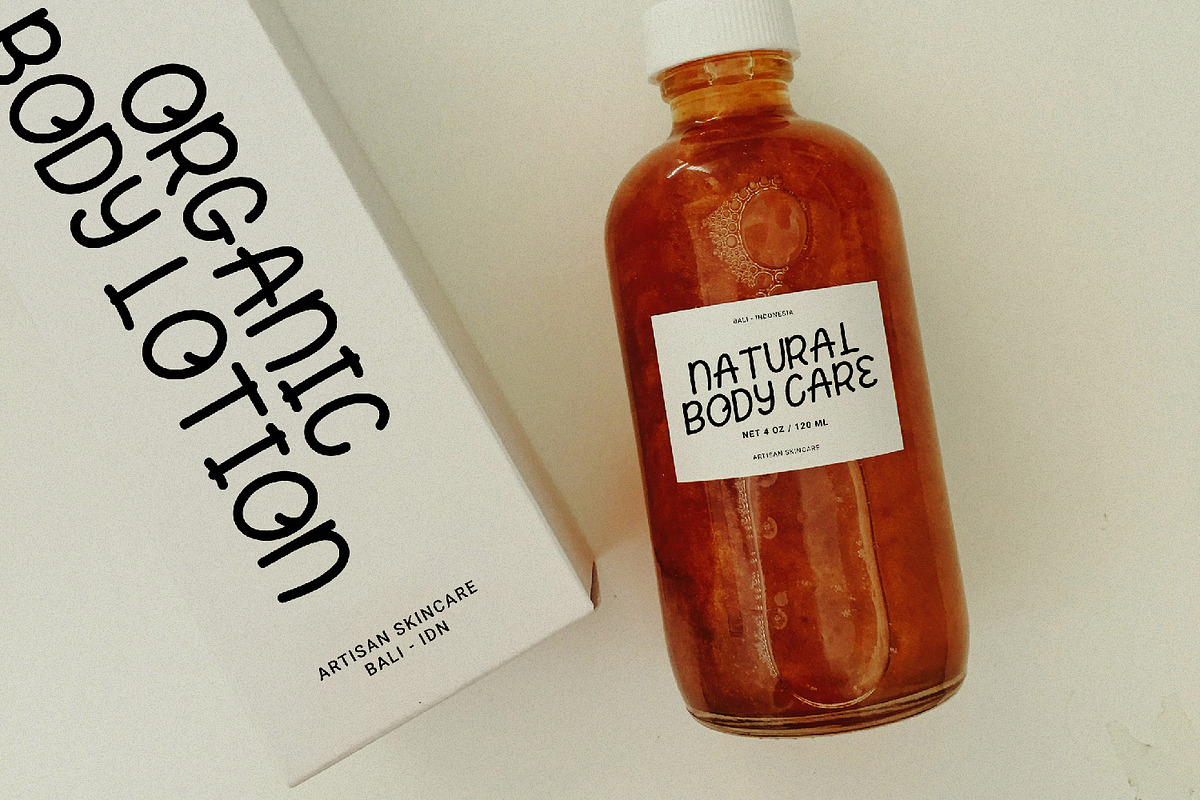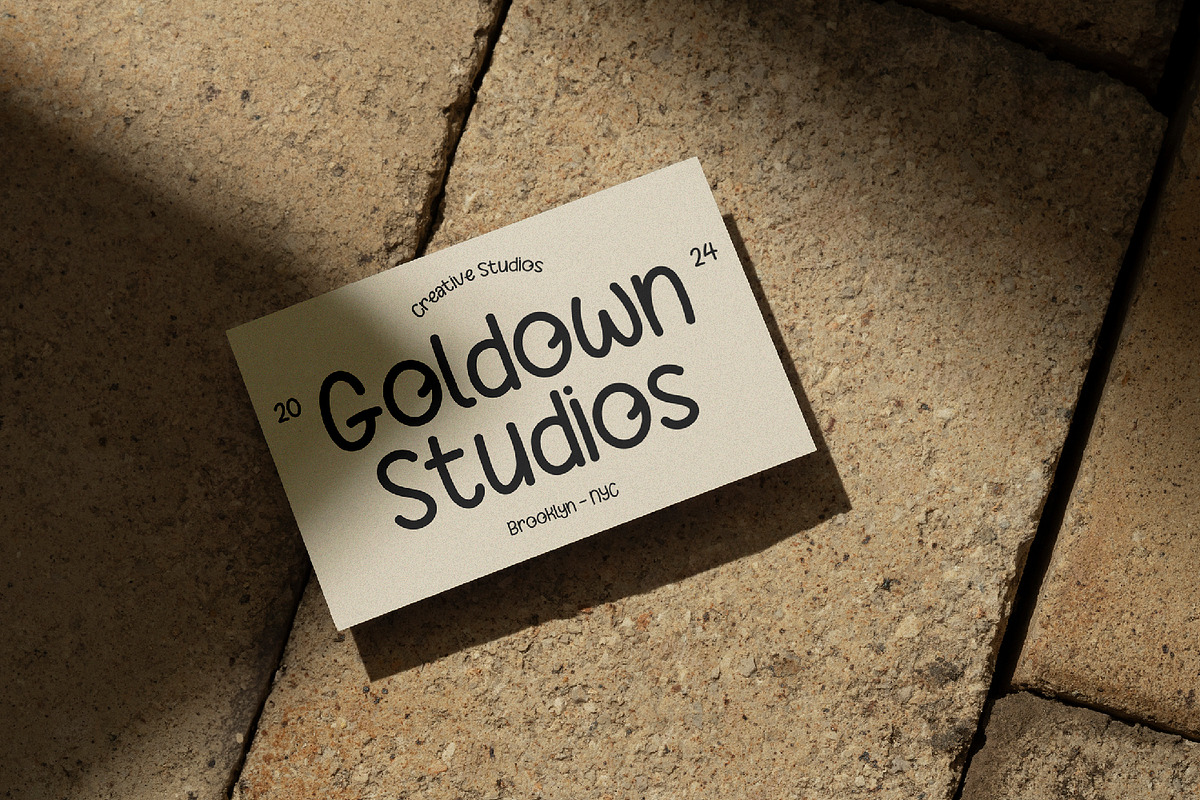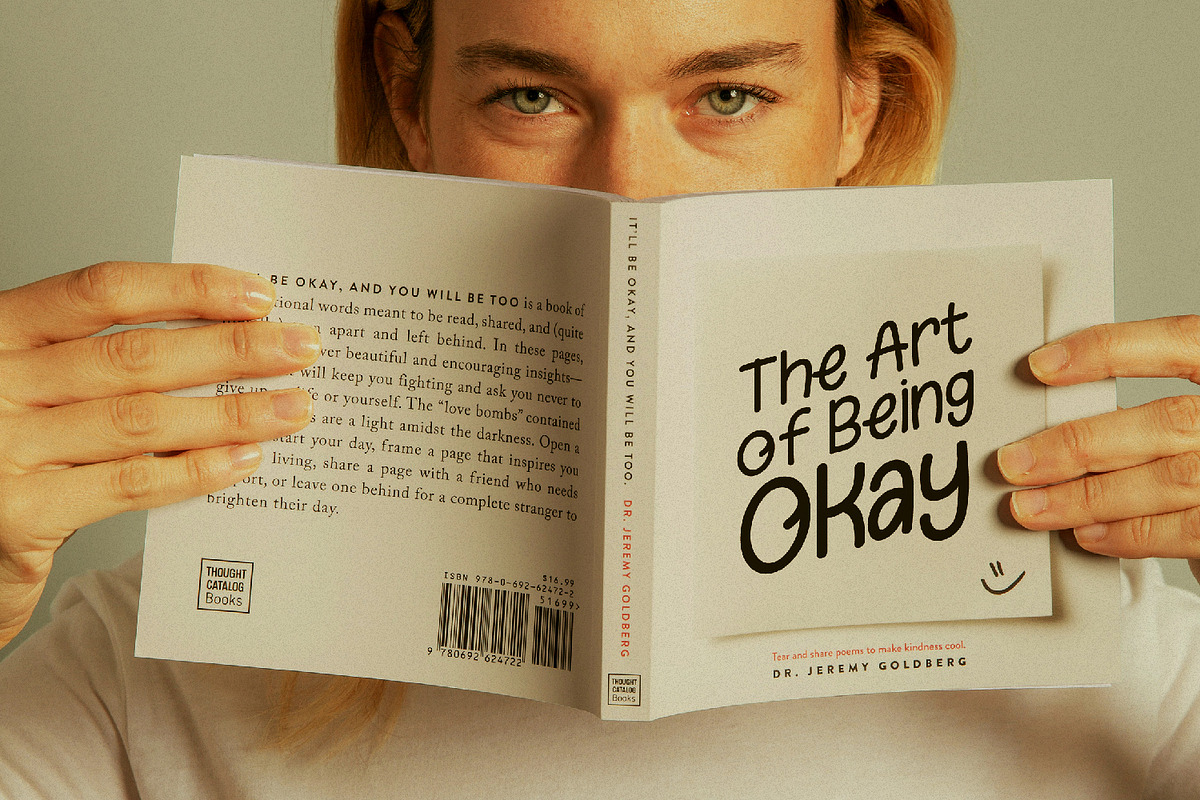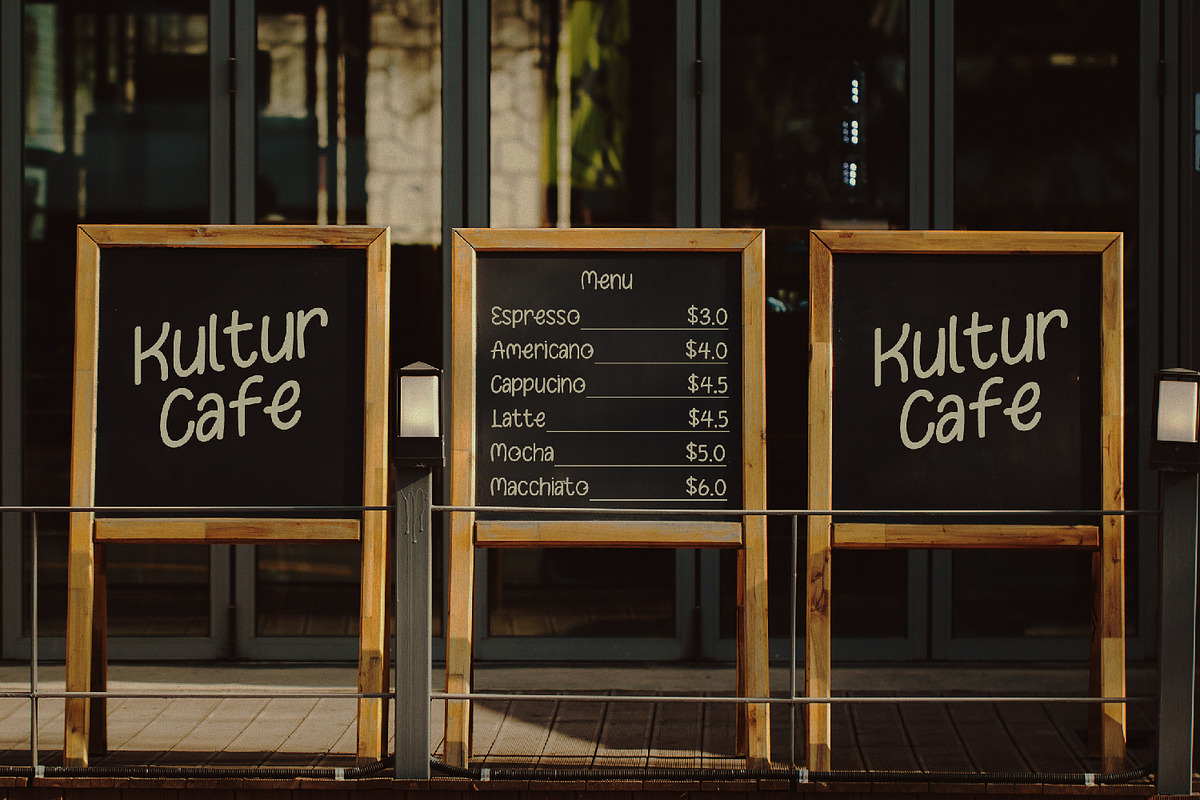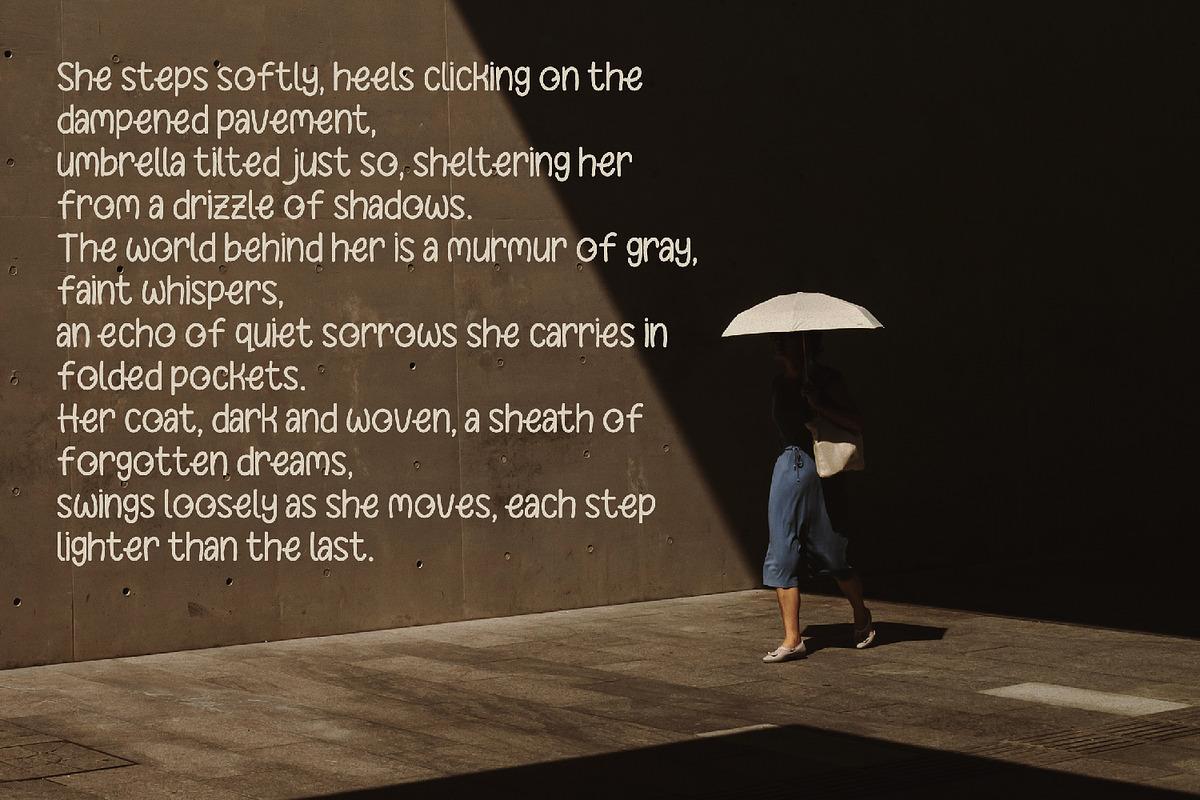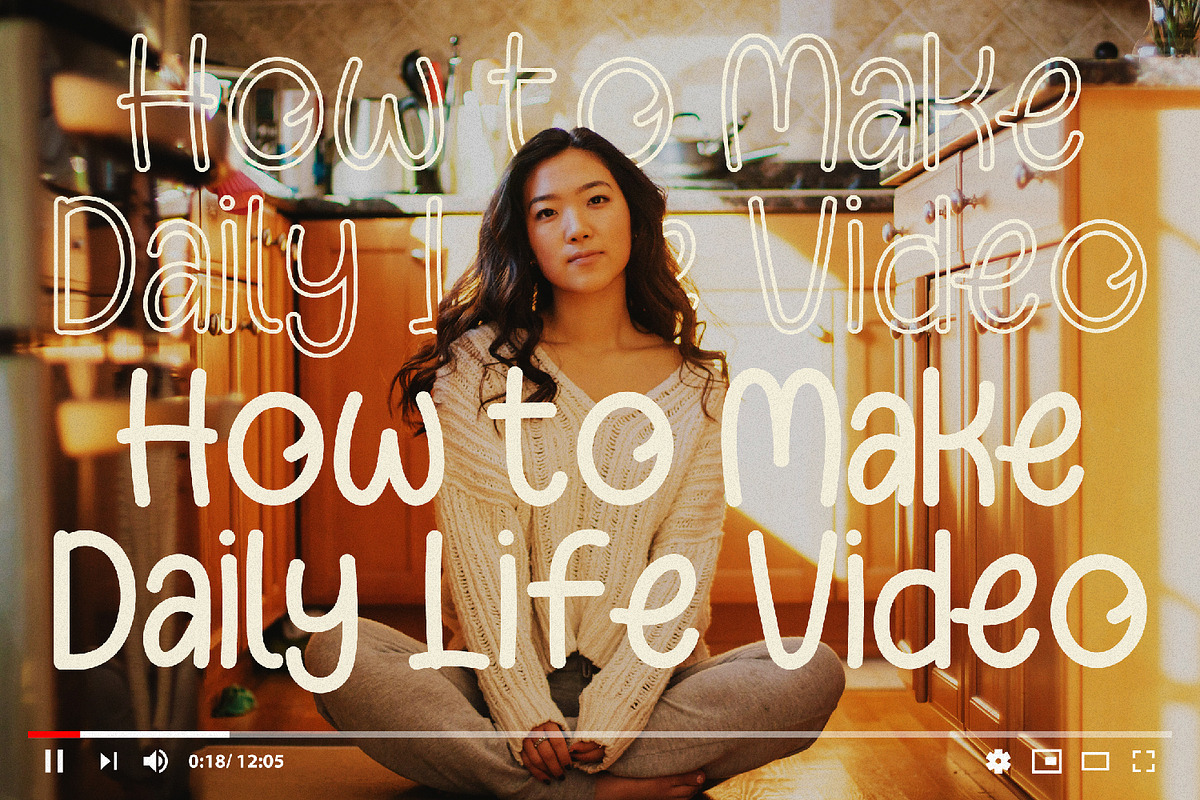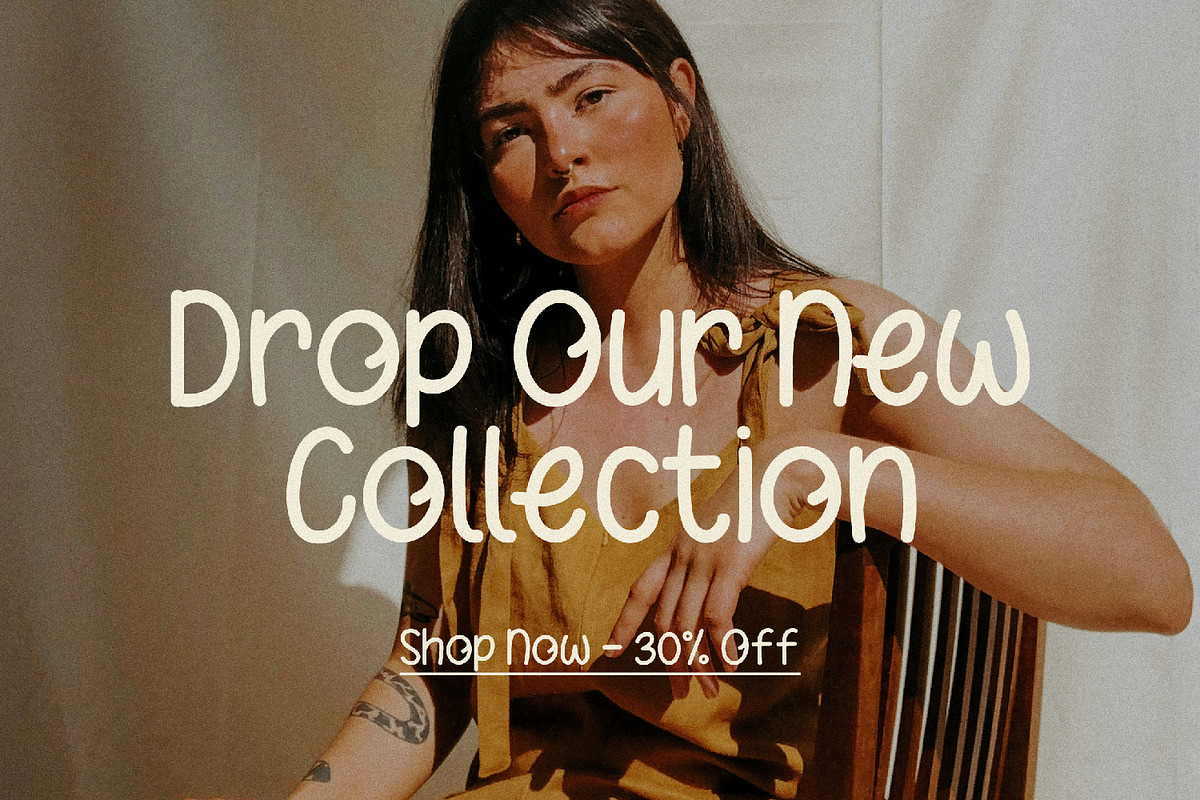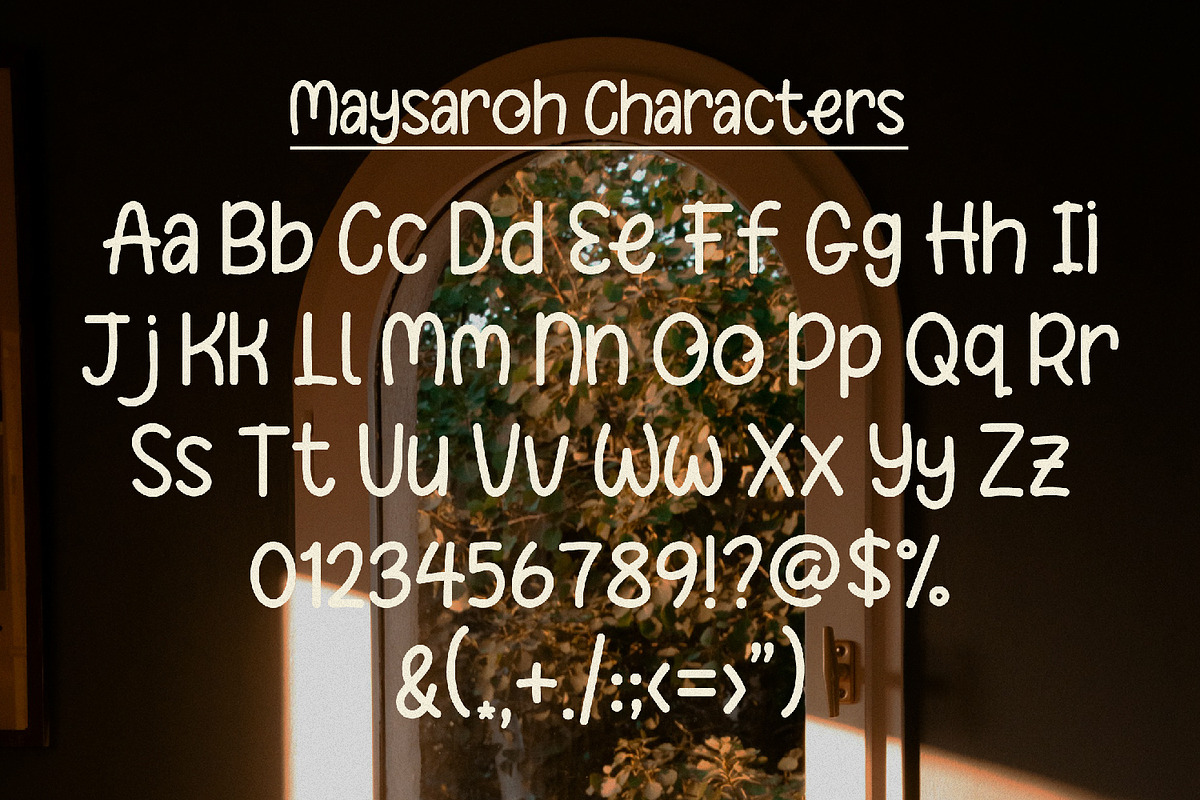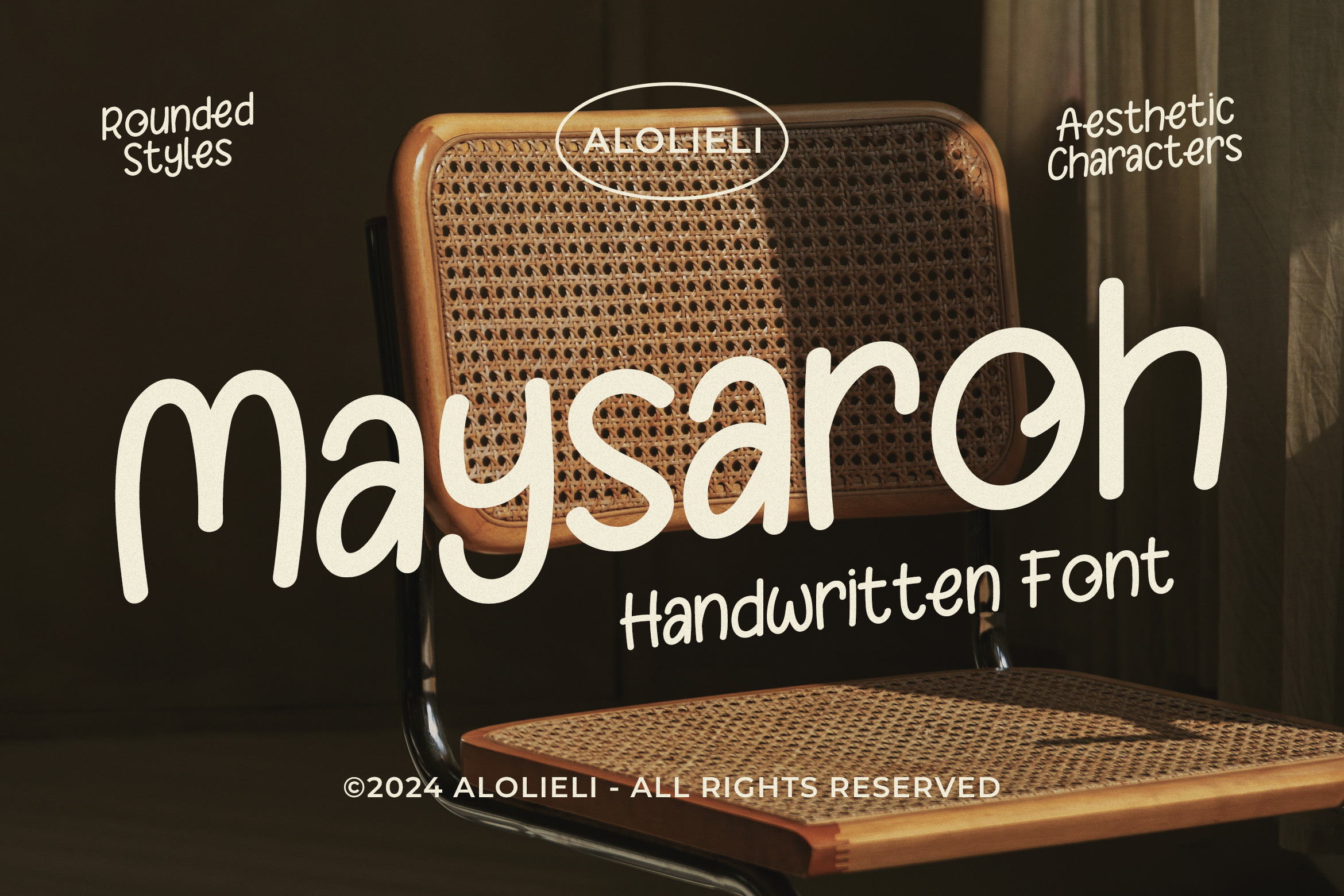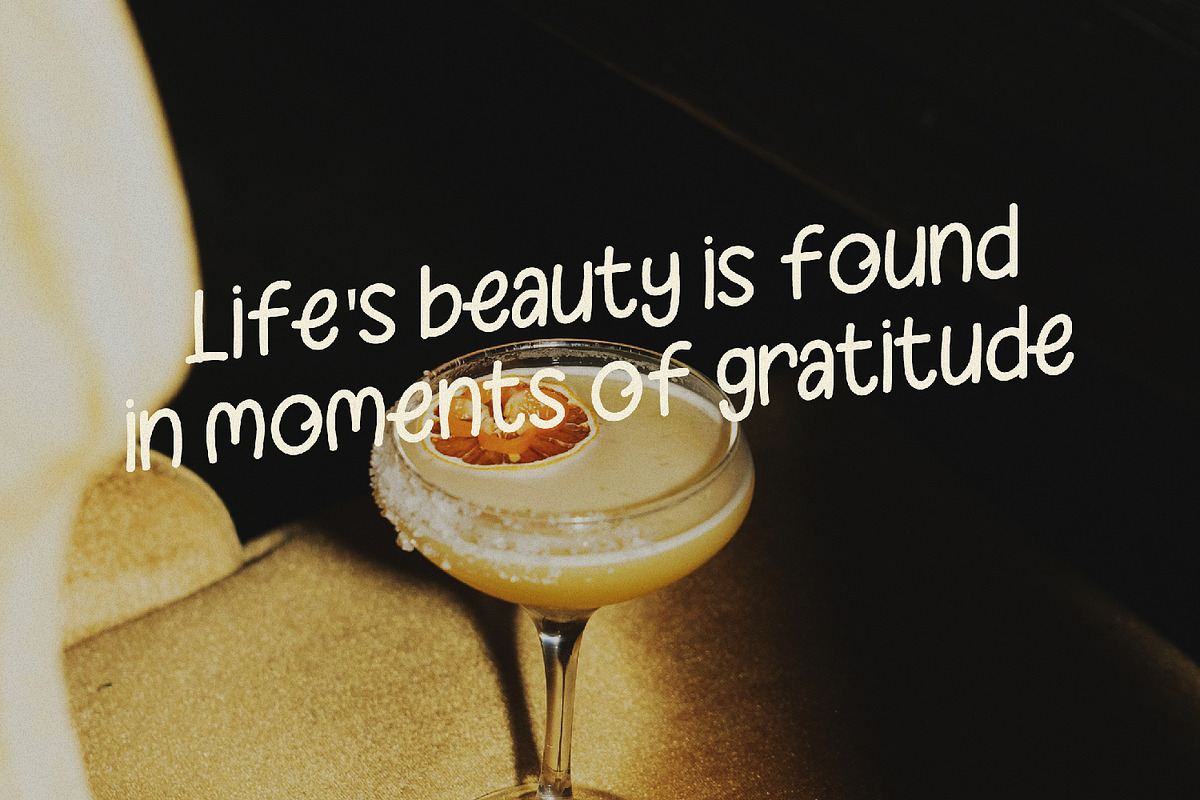
Maysaroh - Handwritten Font
Maysaroh is a charming handwritten font that combines unique aesthetics with a friendly, rounded style. Designed with artistic character and smooth letterforms, this font is perfect for various design needs, from branding and product design to social media. Its natural, soft appearance brings a casual yet elegant touch, ideal for creative projects seeking a personal feel.
- Rounded Style: Each letter is crafted with a smooth, rounded style, giving it a welcoming and pleasant look.
- Aesthetic Characters: Maysaroh features distinctive, artistic characters that add an easily recognizable aesthetic flair.
- Versatile Use: Perfect for a variety of applications, such as posters, invitations, labels, logos, and packaging designs.